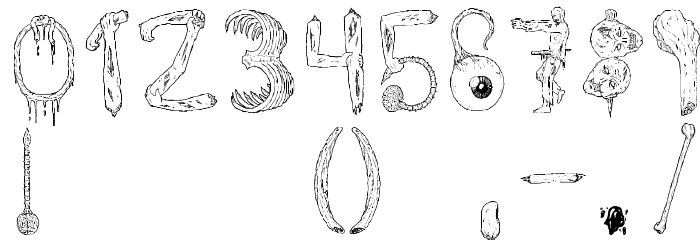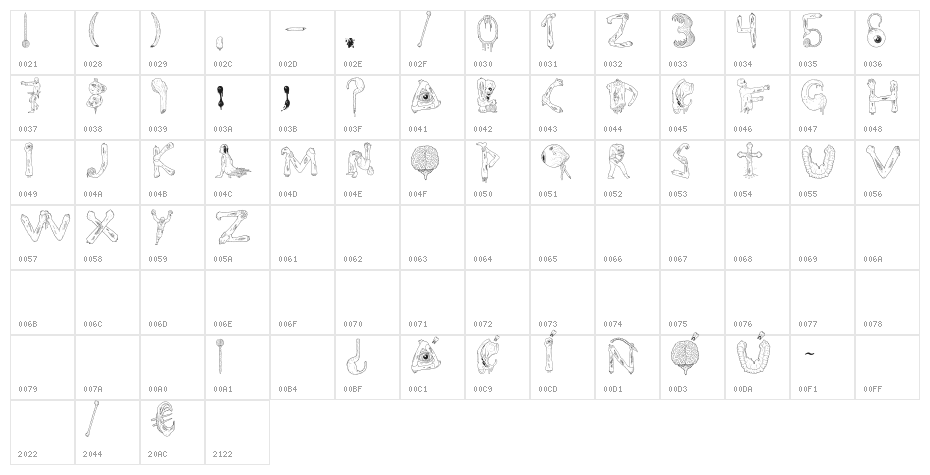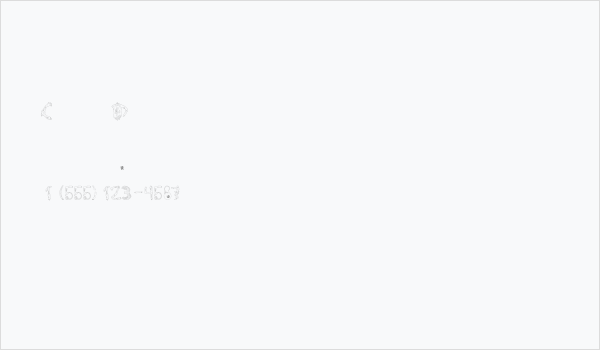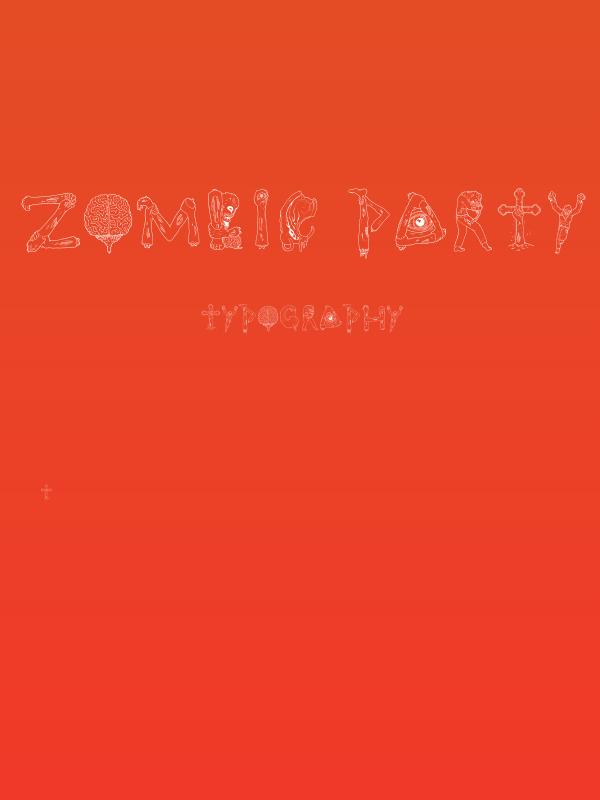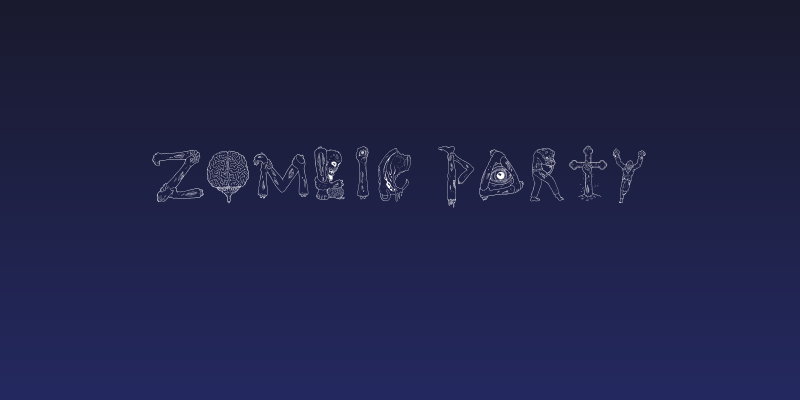
zombie party Font
zombie party Description
This font features a unique and eerie design, with each character resembling elements of a zombie or horror theme. The letters and numbers are crafted to look like they are made from bones, flesh, and other macabre elements, giving a dripping and decayed appearance. The style is highly decorative, with intricate details that mimic the texture of rotting materials. This font captures the essence of a spooky, Halloween-inspired aesthetic, making it perfect for themed events or designs that require a touch of the grotesque. The characters are uneven and irregular, enhancing the unsettling vibe.
| Use Case | Headlines, Posters, Themed Events |
| Proposed Projects | Ideal for Halloween party invitations, horror movie posters, themed event flyers, or any design needing a spooky touch. |